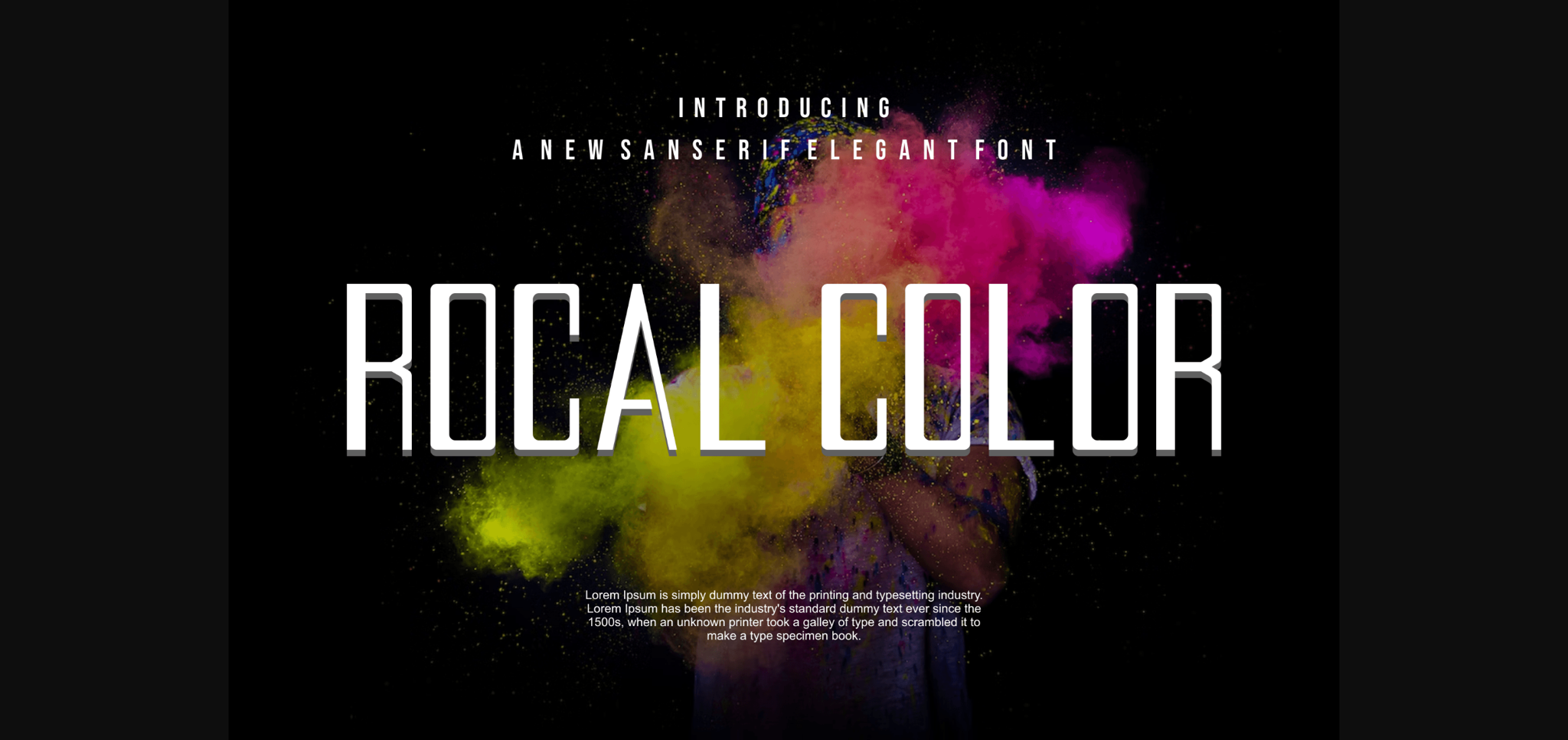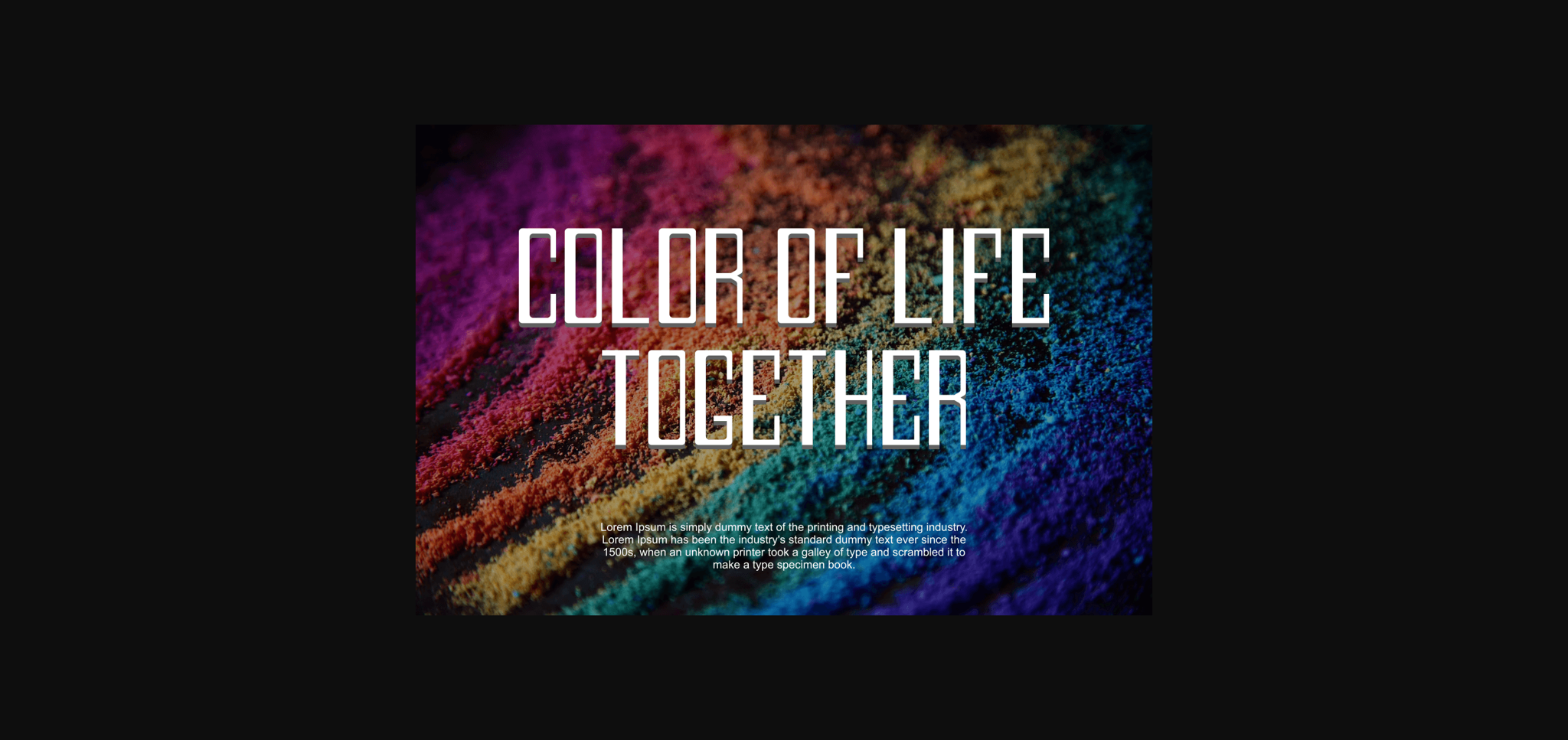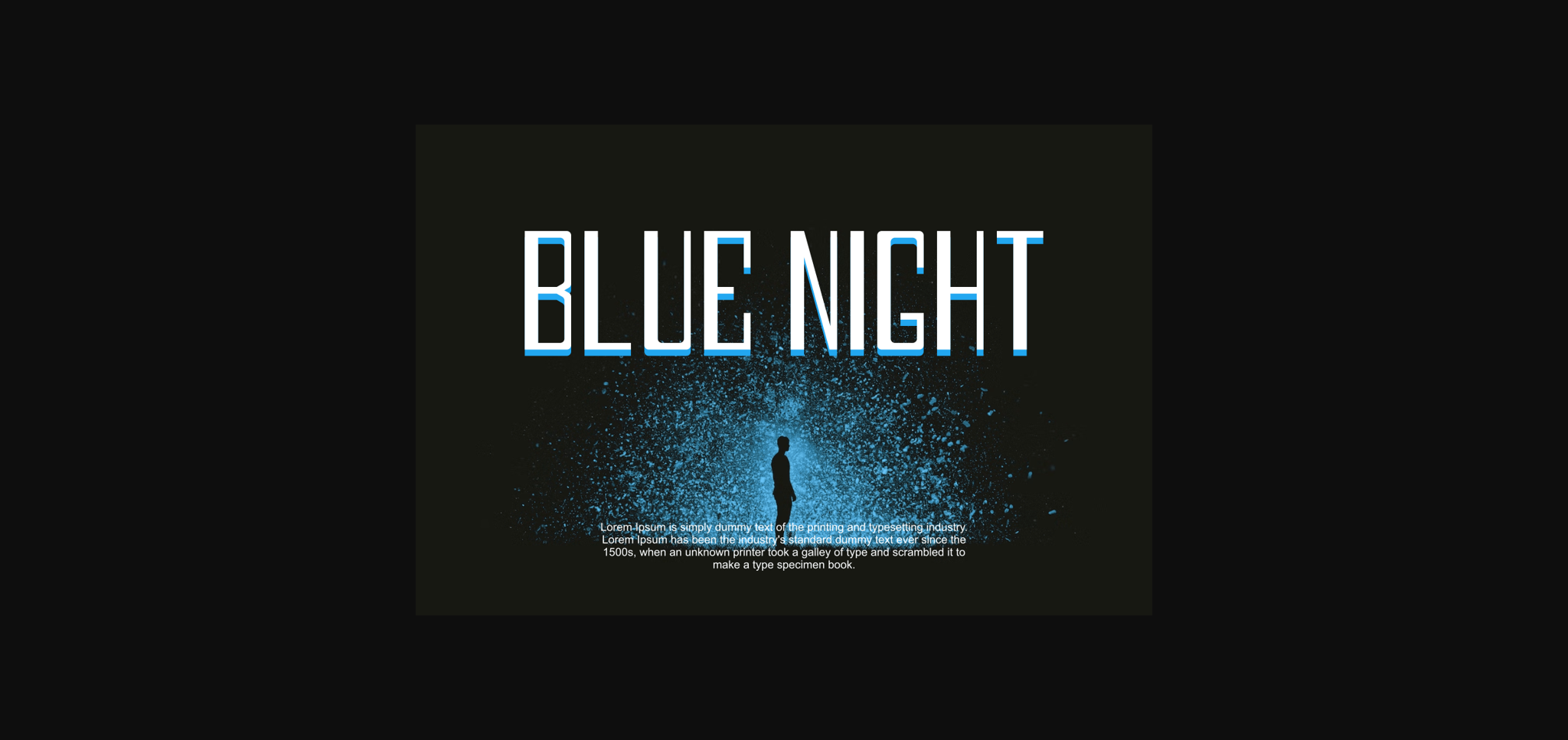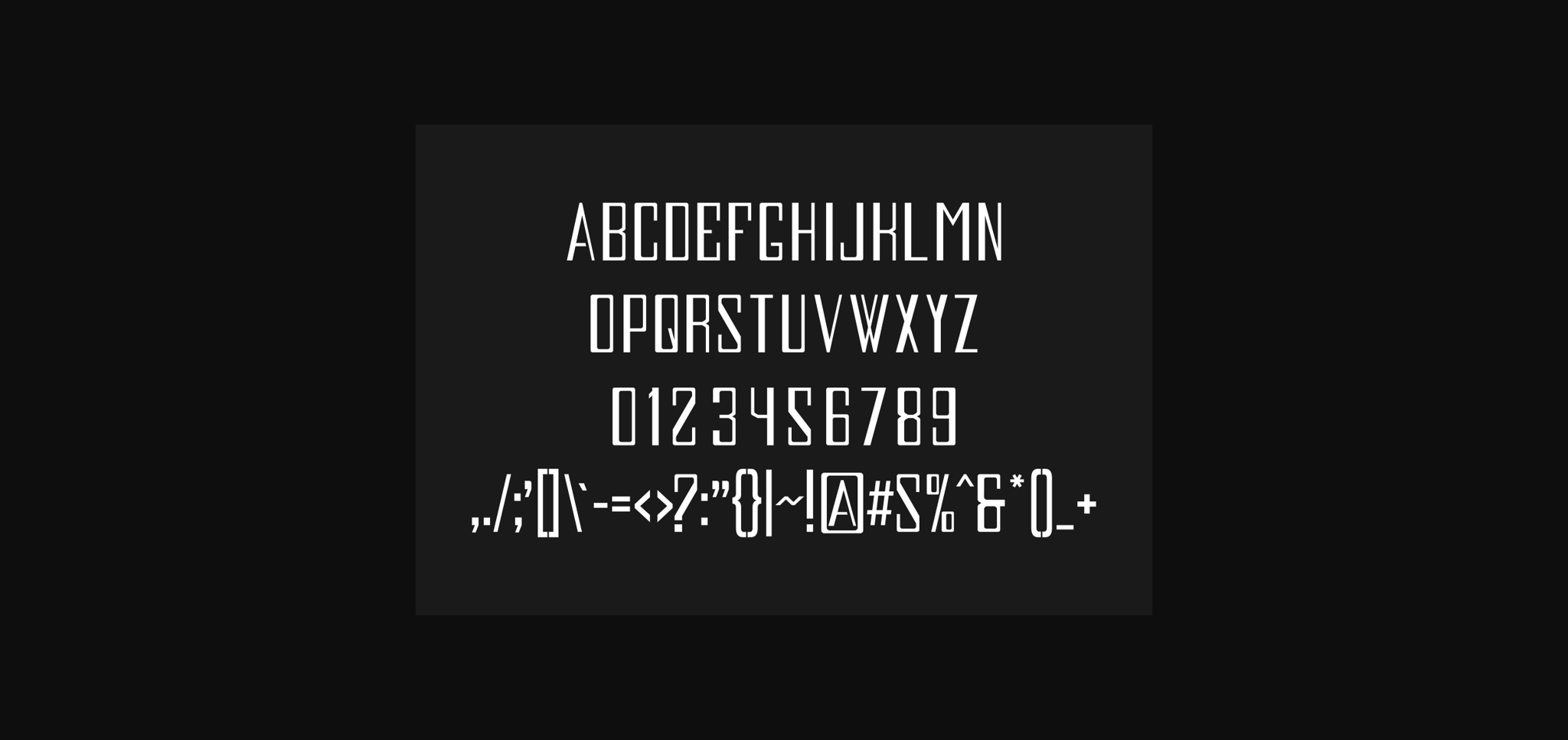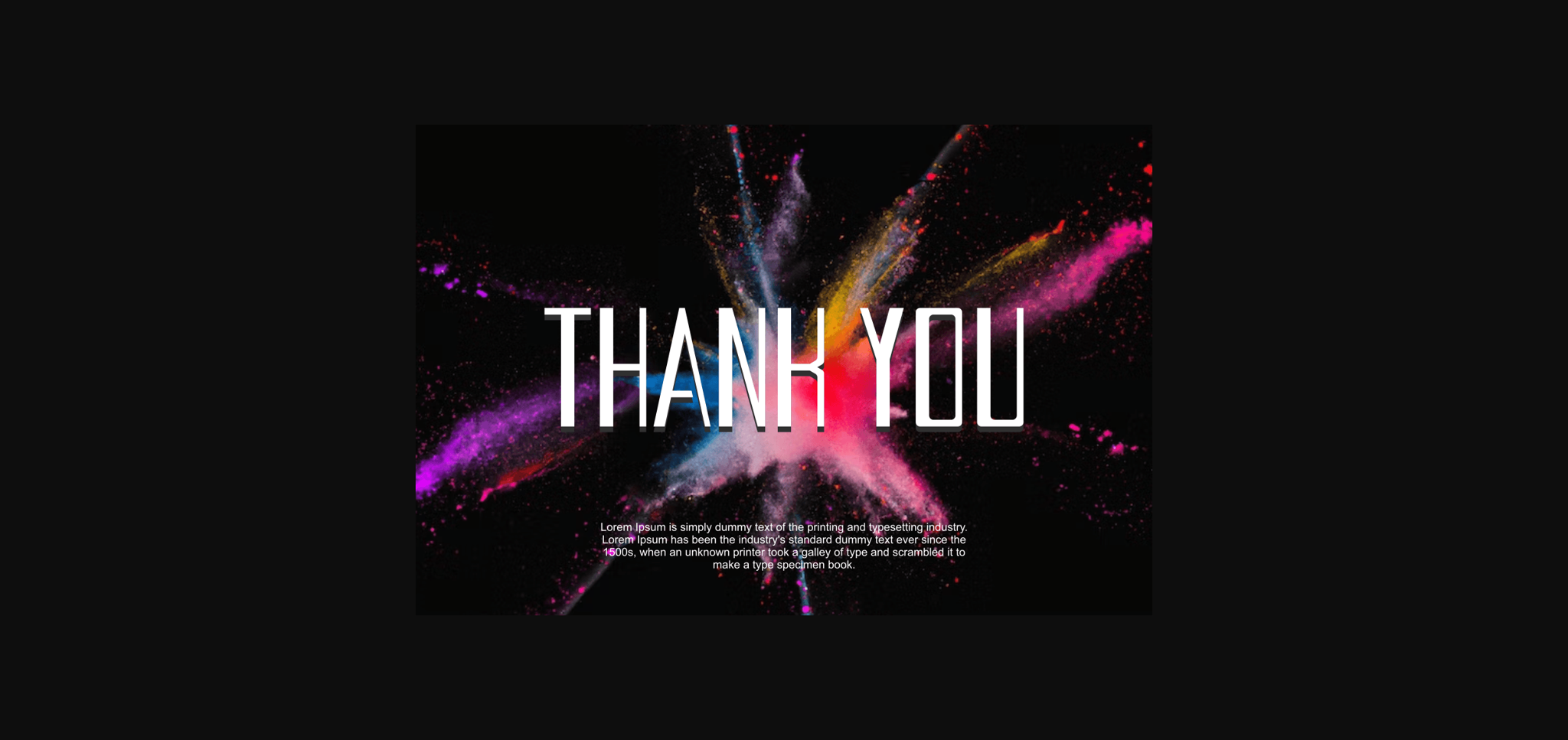
About Rocalcolor Font
**RocalColor Font** – Modern Font is a bold and authentic display font. The font is suitable for any branding project like logo, t-shirt printing, esports, and many more. outstanding in a wide range of contexts.